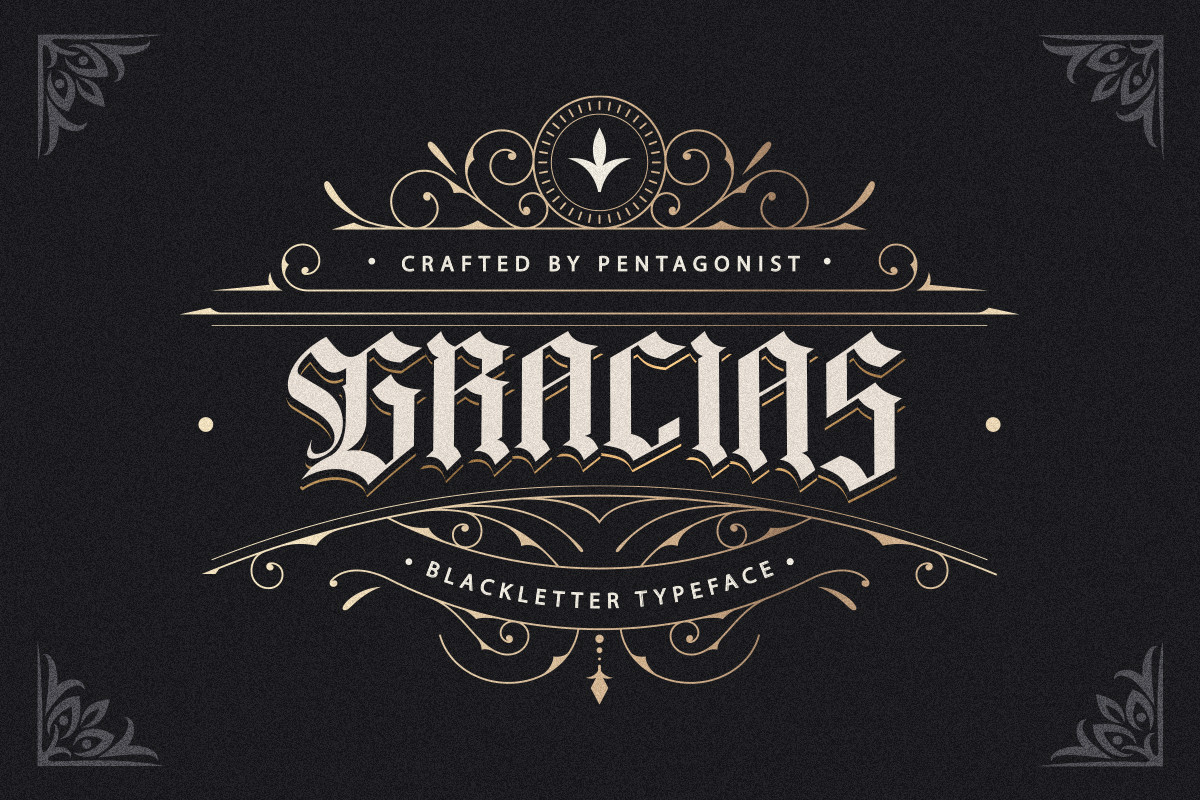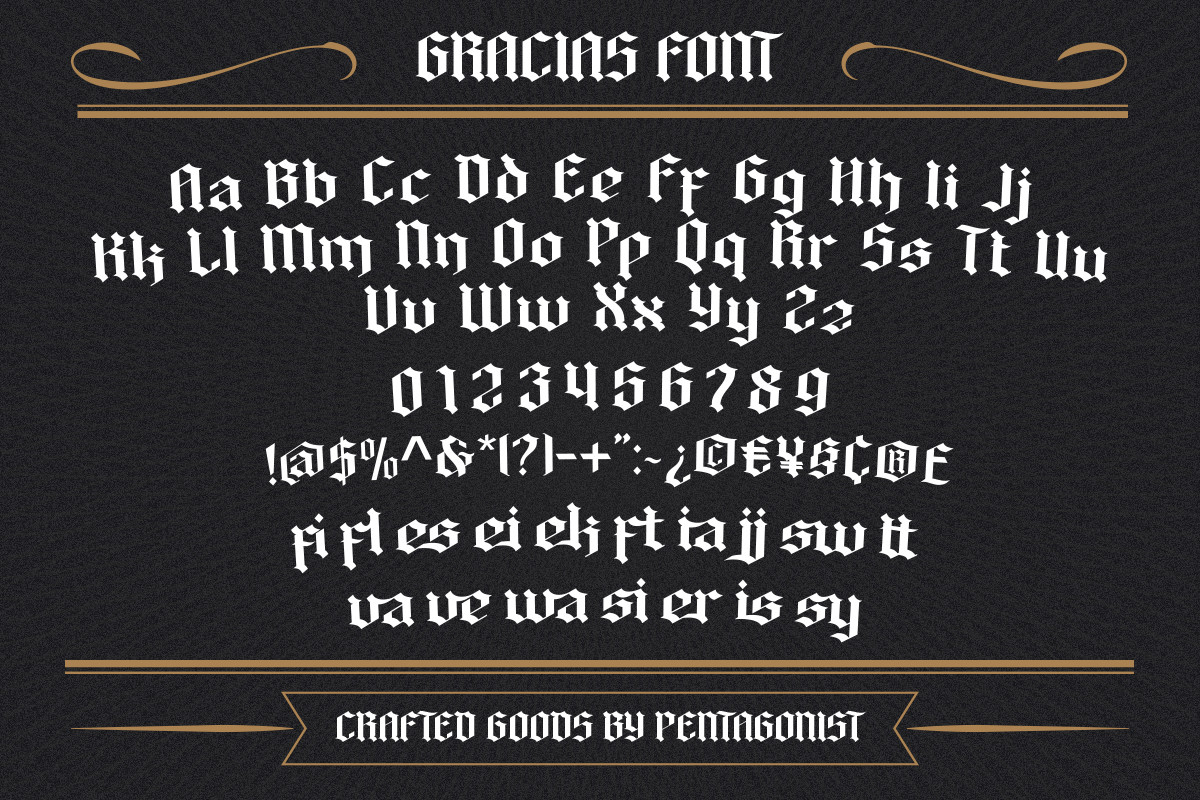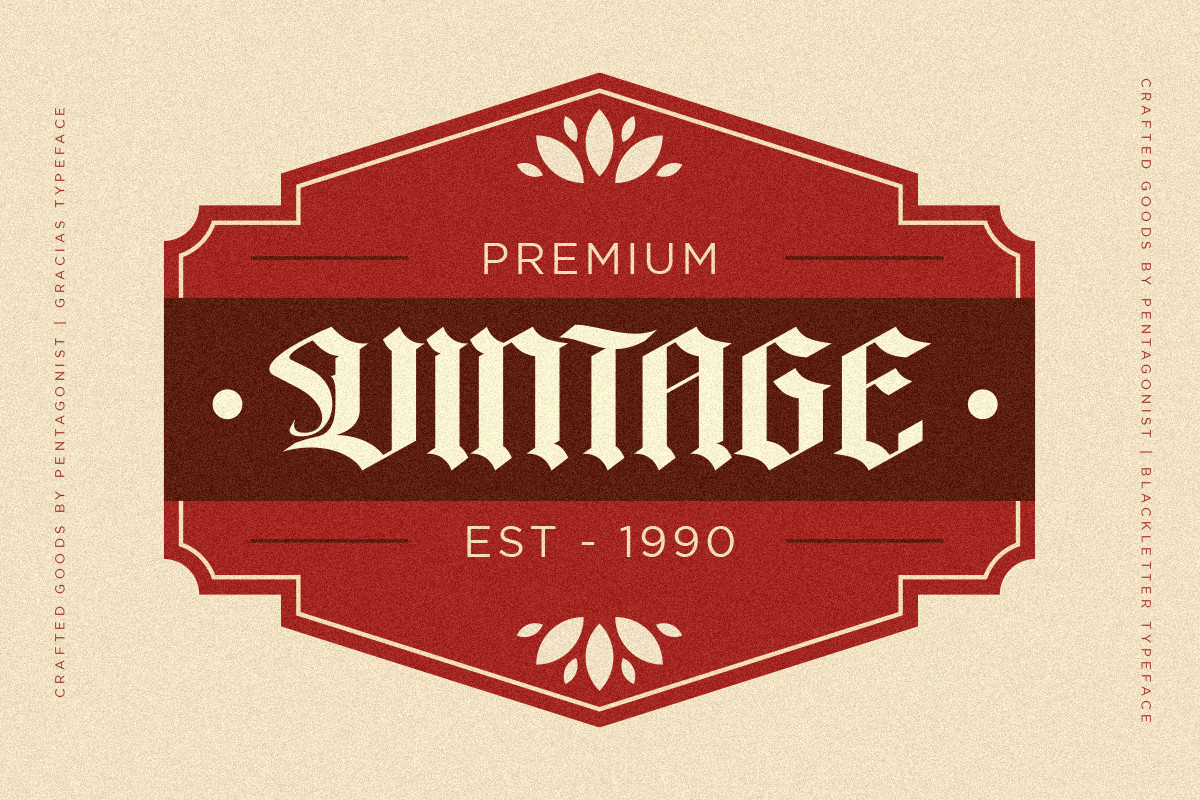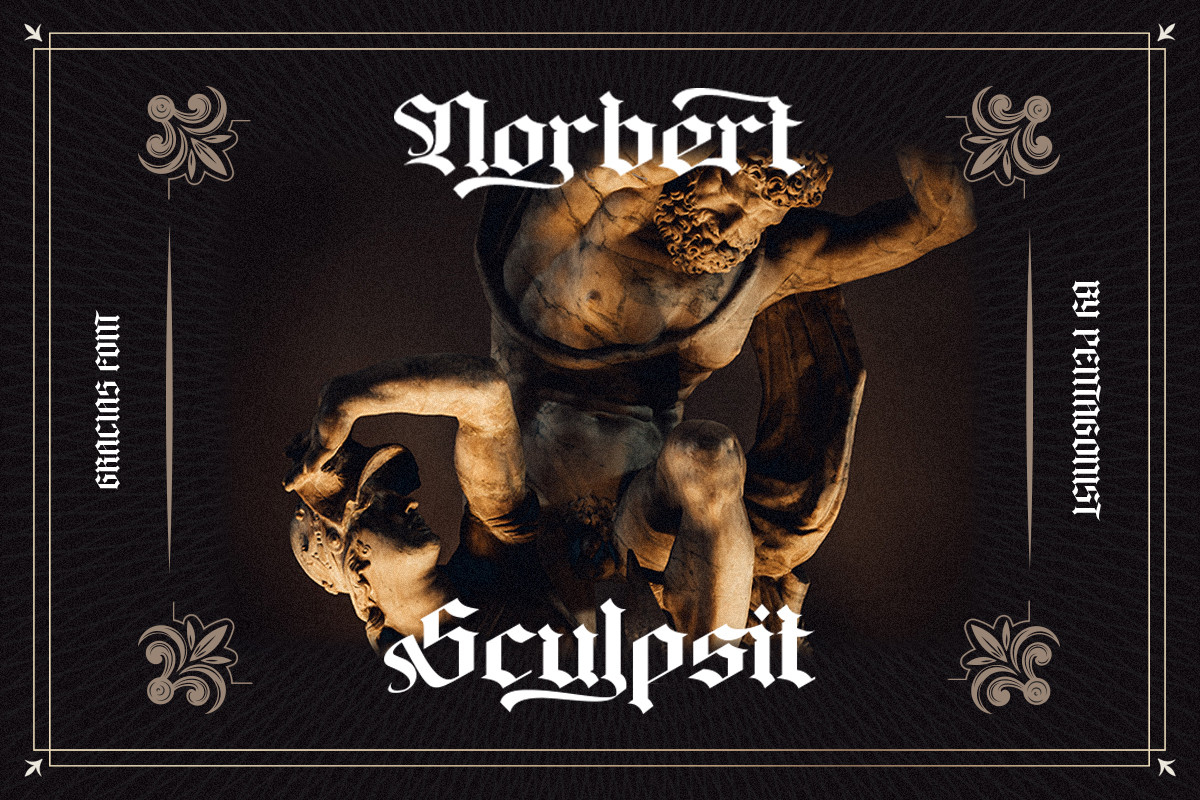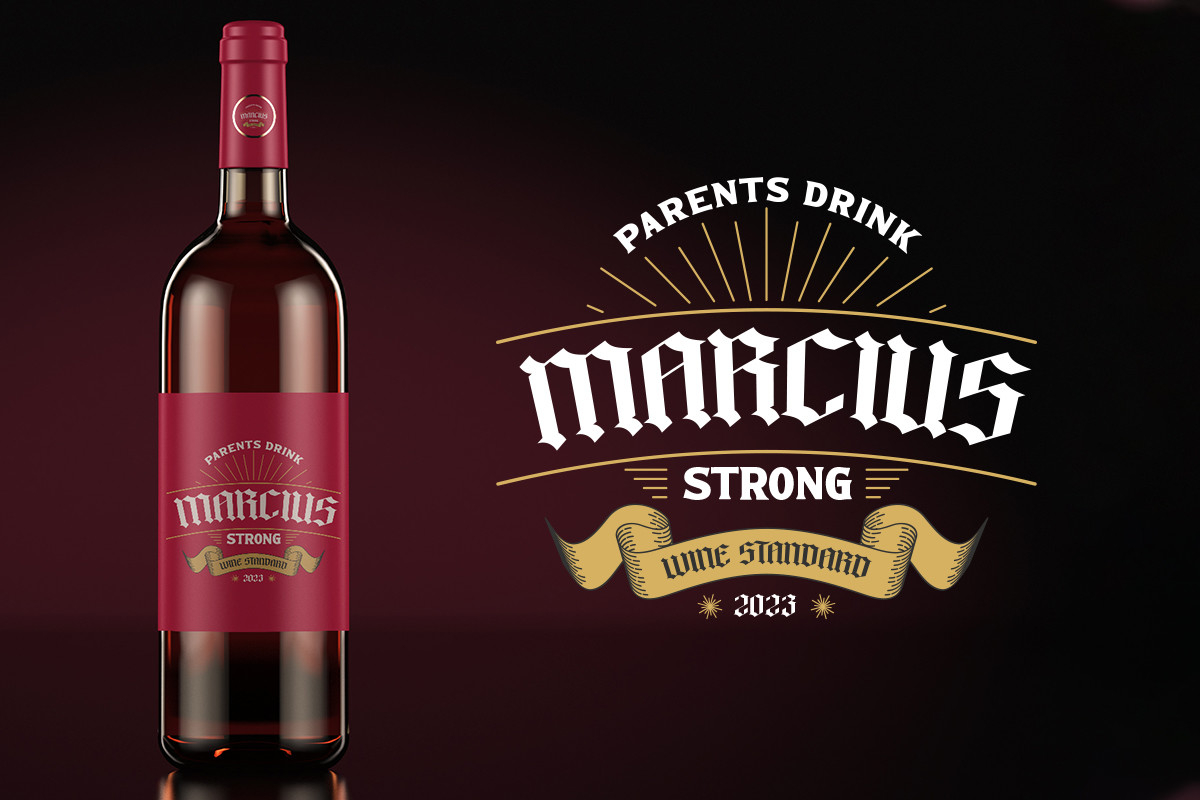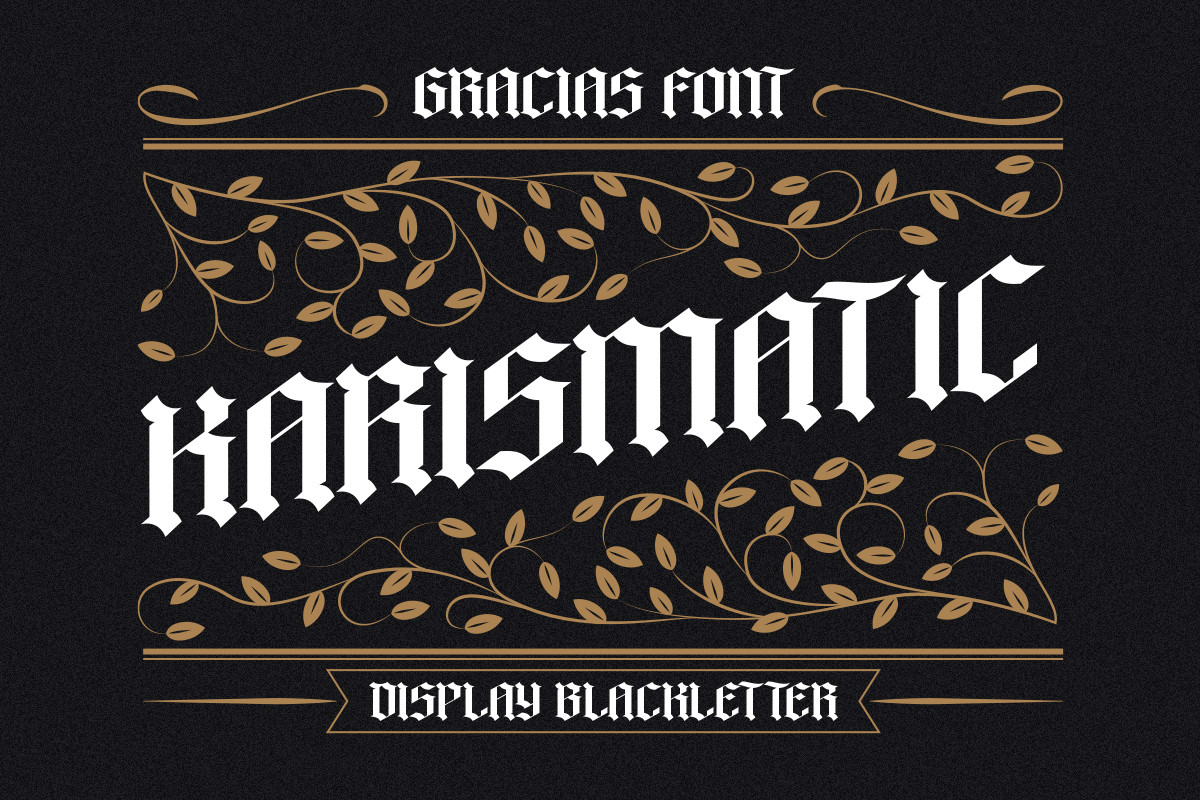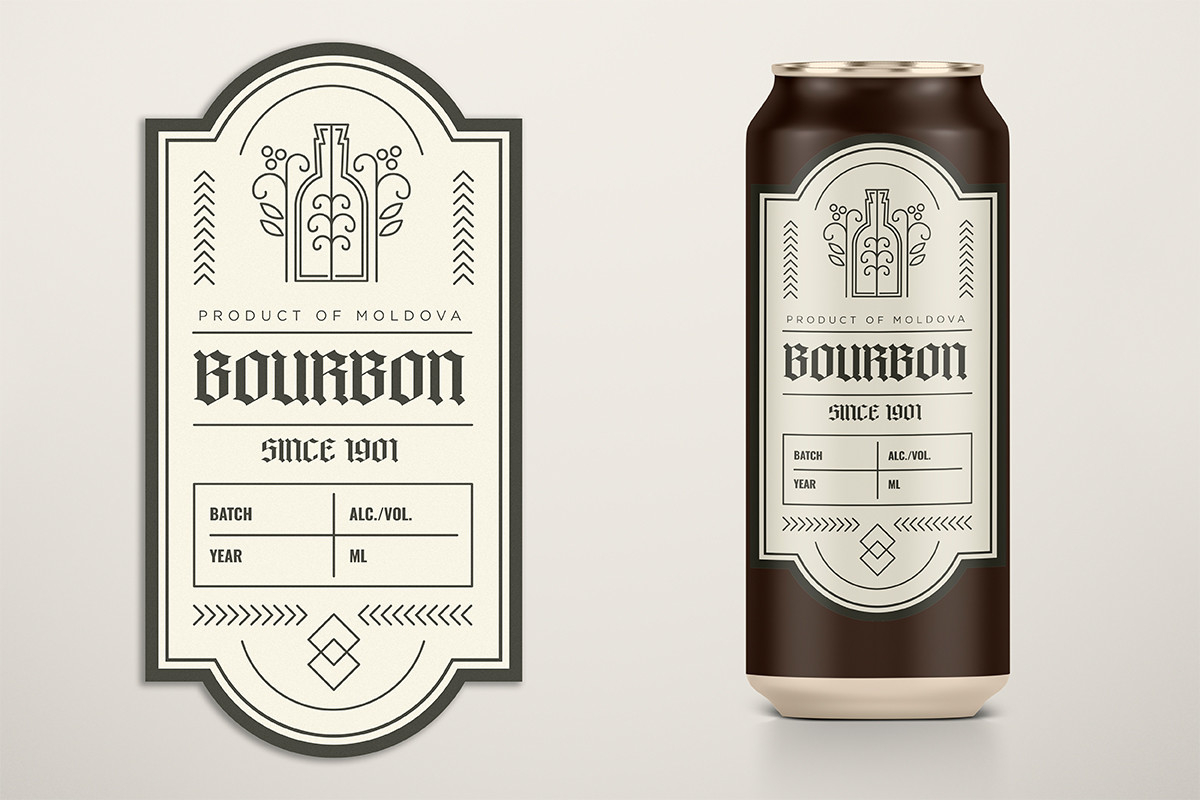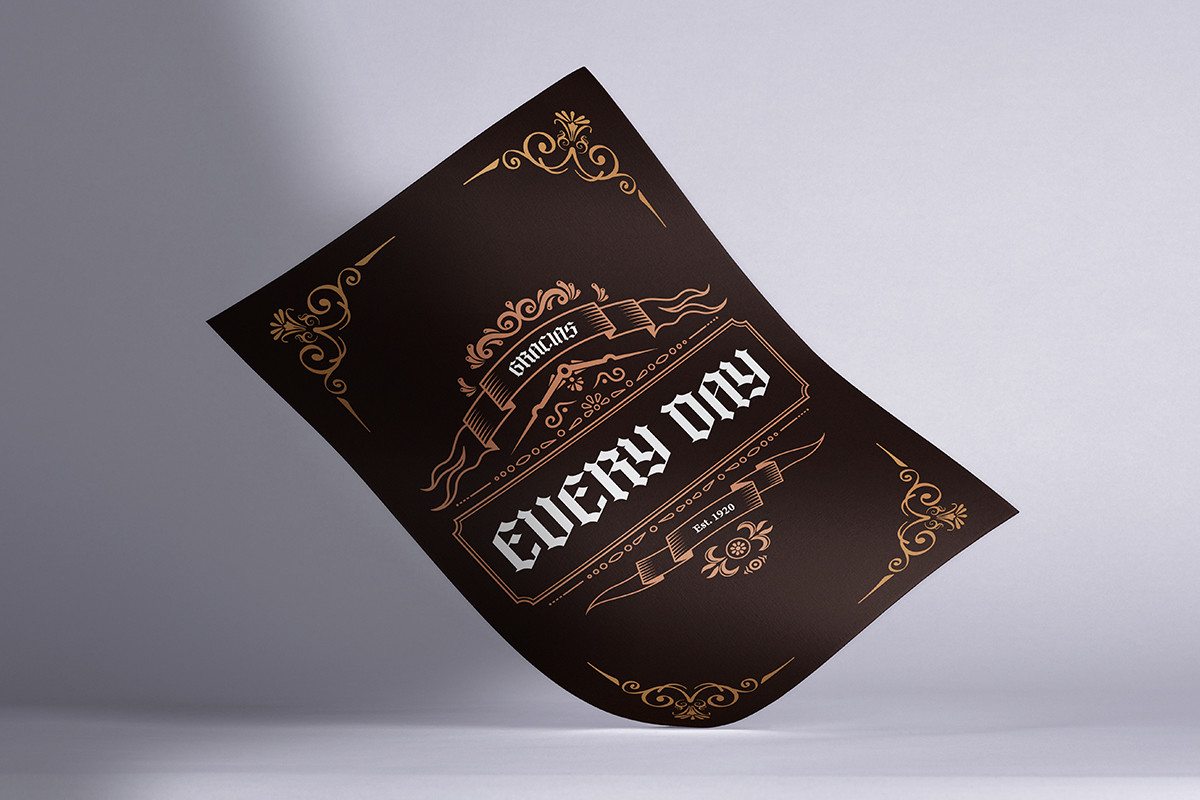
Gracias Font
About Gracias Font
Gracias is a vintage blackletter font that exudes an old-world charm and elegance. With its intricate, calligraphic letterforms and sharp angles, Gracias captures the essence of traditional Gothic typography. Its timeless appeal adds a touch of sophistication and mystique to any design. Whether used for invitations, logos, or headlines, Gracias brings a touch of vintage charm to your projects.